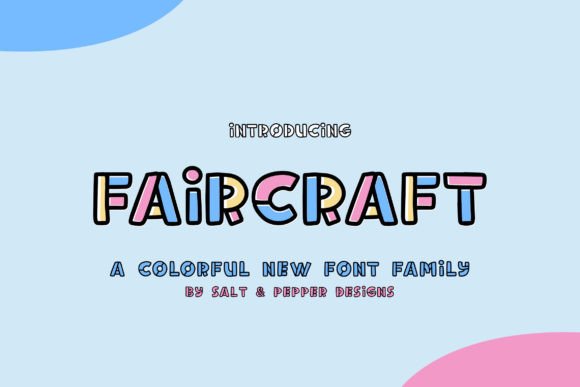
Journey into the world of Faircraft Font, a display font of remarkable boldness and beauty, designed to infuse your creative projects with vibrant personality. Its captivating presence shines through effortlessly, commanding attention in banners, posters, titles, covers, and beyond.
Unleash your creativity with Faircraft Font, a bold and expressive display font that will add tons of personality to your designs. Perfect for making a statement, this font is meticulously crafted to stand out from the crowd. Its unique letterforms and dynamic curves create a striking visual impact that's guaranteed to leave a lasting impression.
Faircraft Font's versatility knows no bounds. Whether you're working on a captivating poster, an eye-catching title, or a vibrant cover, this font effortlessly adapts to your creative vision. Its bold strokes and dynamic shapes bring a touch of artistic elegance to any project, making it the perfect choice for designers seeking a font that truly captivates.
With Faircraft Font, you'll discover a world of creative possibilities. Its carefully crafted characters dance across your designs, inviting you to explore new horizons of expression. From playful invitations to striking business cards, this font adds a touch of uniqueness and charm to every project.
Let Faircraft Font ignite your imagination and elevate your designs to new heights. As a creation of Salt and Pepper Fonts, this font embodies their passion for creating fonts for Cricut pens that inspire and empower designers of all levels.
Join the creative revolution and embrace Faircraft Font today. Let its bold strokes and captivating presence transform your designs into masterpieces that resonate with your audience. Experience the beauty of Faircraft Font and embark on a creative journey unlike any other.